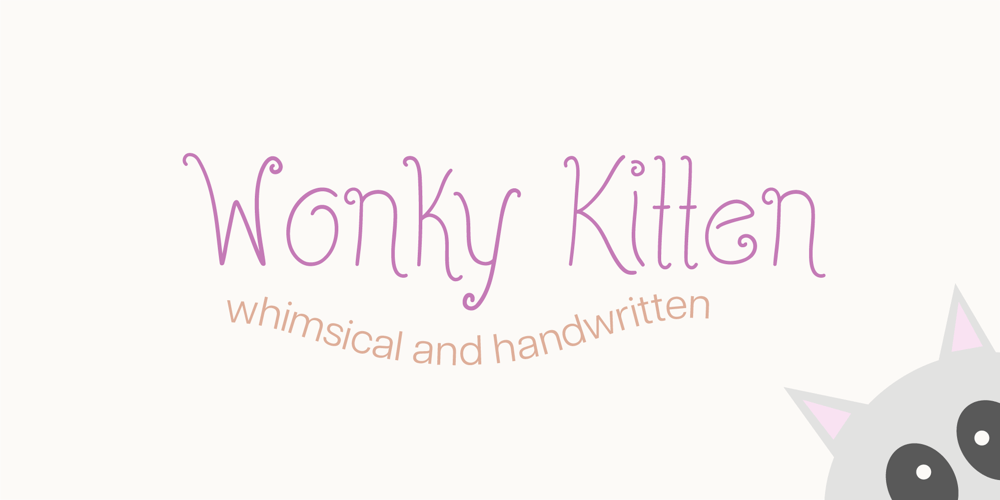
Wonky Kitten Font Family was designed by Jess J and published by Type Avenue. Wonky Kitten contains 1 styles and family package options. Here we have a loopy and whimsical font called Wonky Kitten. Its crazy and unstructured form gives this font a mad personality while maintaining an air of innocence. It’s perfect to use in book titles, children’s and teen branding, as well as type for a poster or canvas.